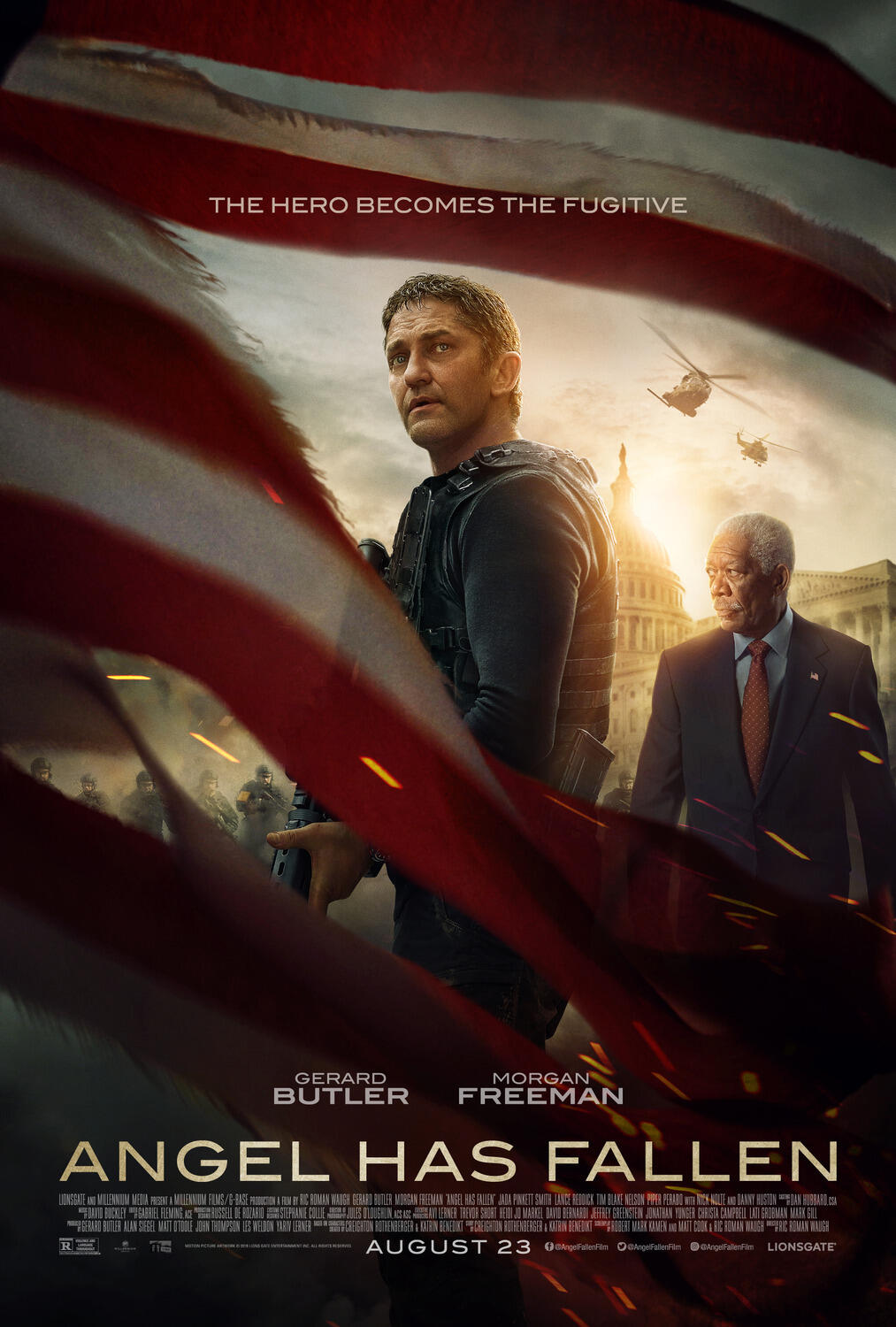
Angel Has Fallen Font
ActionAngel Has Fallen is an action thriller film where a Secret Service agent, played by Gerard Butler, is framed for an assassination attempt on the President and must uncover the truth while evading capture and protecting his family.
The film's poster prominently features the title set in ITC Blair Medium typeface. Originally developed by the Inland Type Foundry in the early 1900s, it was later digitized and expanded by Jim Spiece in 1997 offering a range of weights.